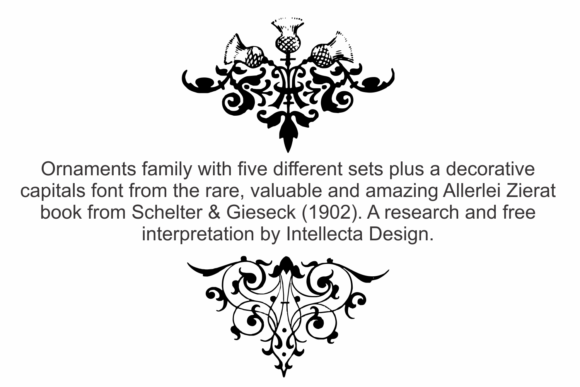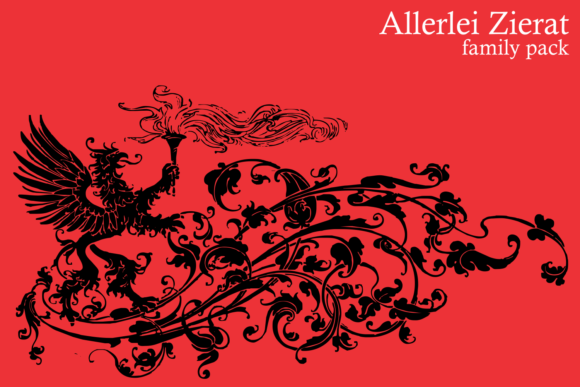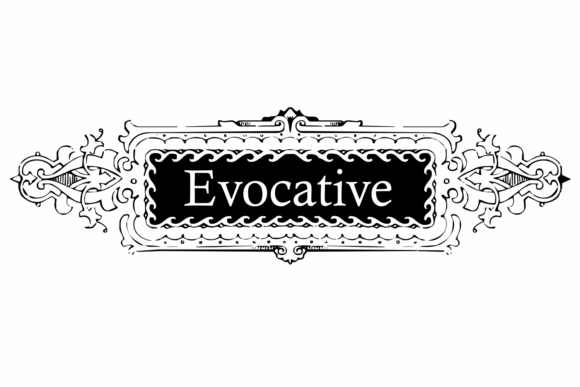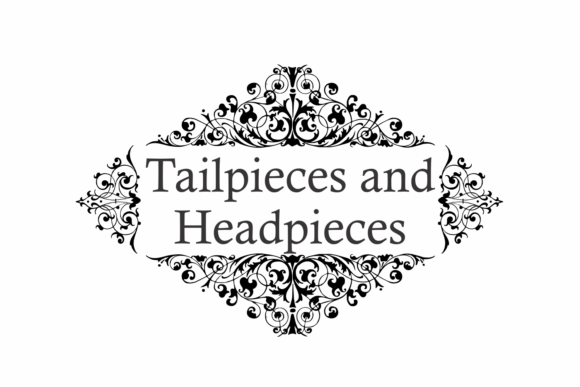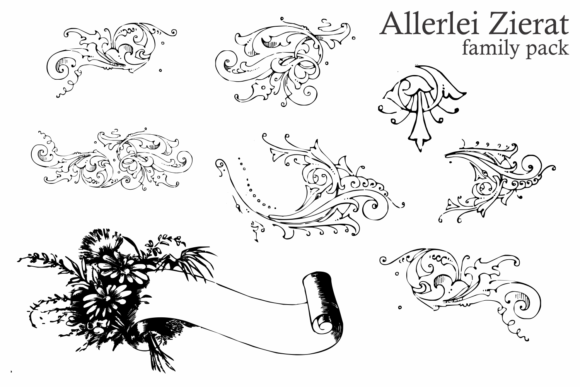
Allerlei Zierat Family Font
About Allerlei Zierat Family Font
The Allerlei Zierat is an ornaments family with five different sets plus a decorative capitals font from the rare, valuable and amazing Allerlei Zierat book from Schelter & Gieseck (1902). A research and free interpretation by Intellecta Design. This encyclopedic specimen book of the Leipzig, Germany type foundry and printing supply house J.G. Schelter & Giesecke features, as the title indicates, all kinds of decoration for supplying printing of every type. On the title page, the firm boasts winning grand prize in 1900 in Paris (presumably at the Exposition Universelle). It is hard to do justice in a short description to the variety of styles (traditional, Jugenstil, etc.) and categories (certificates, letterheads, borders, ornaments, exotic motifs, flowers, animals, silhouettes, menus, greeting cards, vignettes humorous and otherwise, images of bicyclists, occupational symbols, portraits, Classical figures, religious art, heraldry, ships, trains, athletes, etc., etc.) offered in this volume. Some of the examples are printed in color, most are in black-and-white. The Jugenstil cover of this copy shows minor wear and soiling. The plate of âœGust. Carlsson & Co., Stockholm is attached to the front pastedown. A small fraction of pages show minor soiling, a pencil notation or a short closed tear. Two of the fold-outs at the back have a little more damage-one is missing a 1×2 inch piece along the margin, the other has a 3-inch closed tear and an edge which is crumpled. A rare specimen from the Intellecta rare books library.